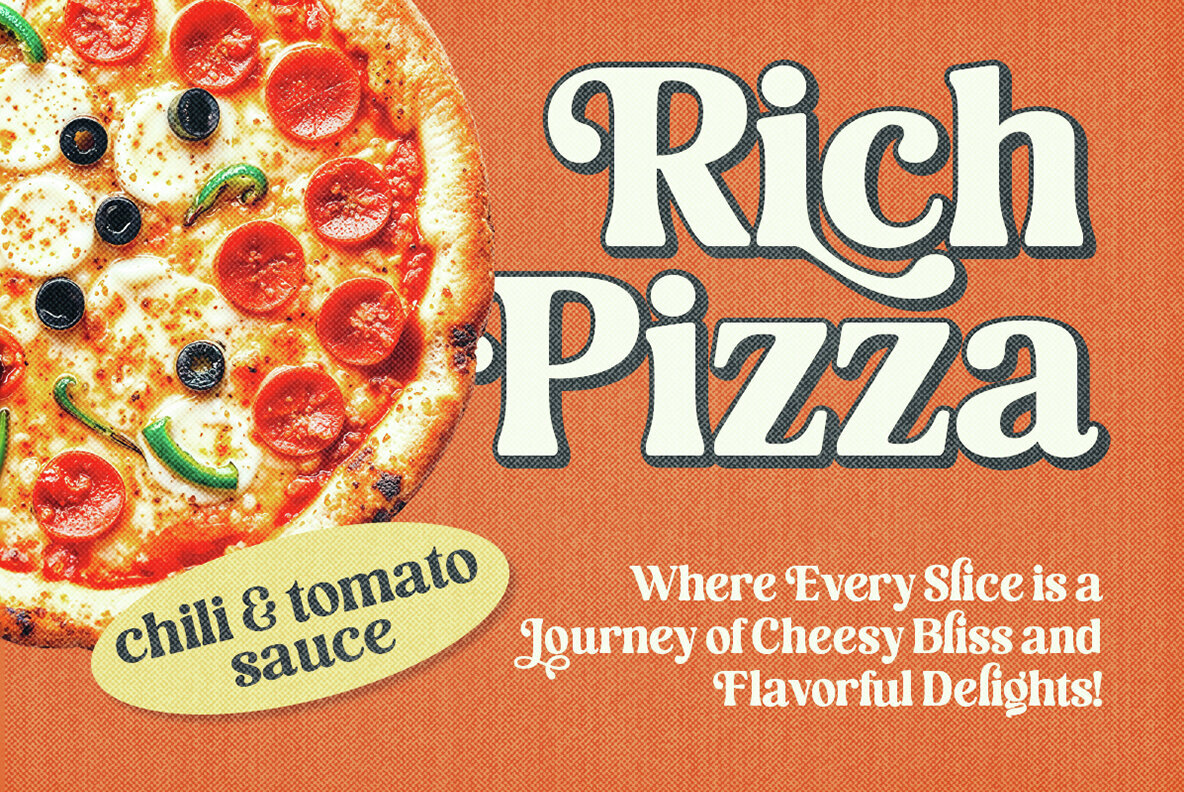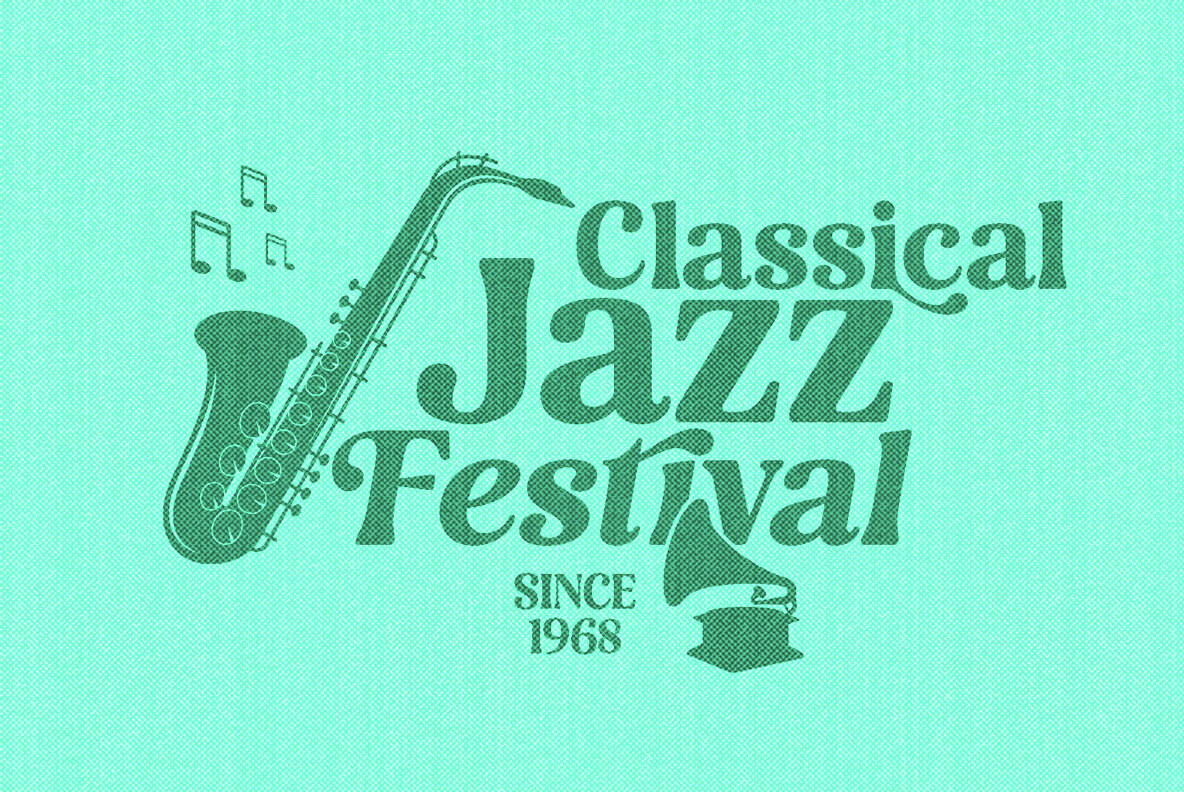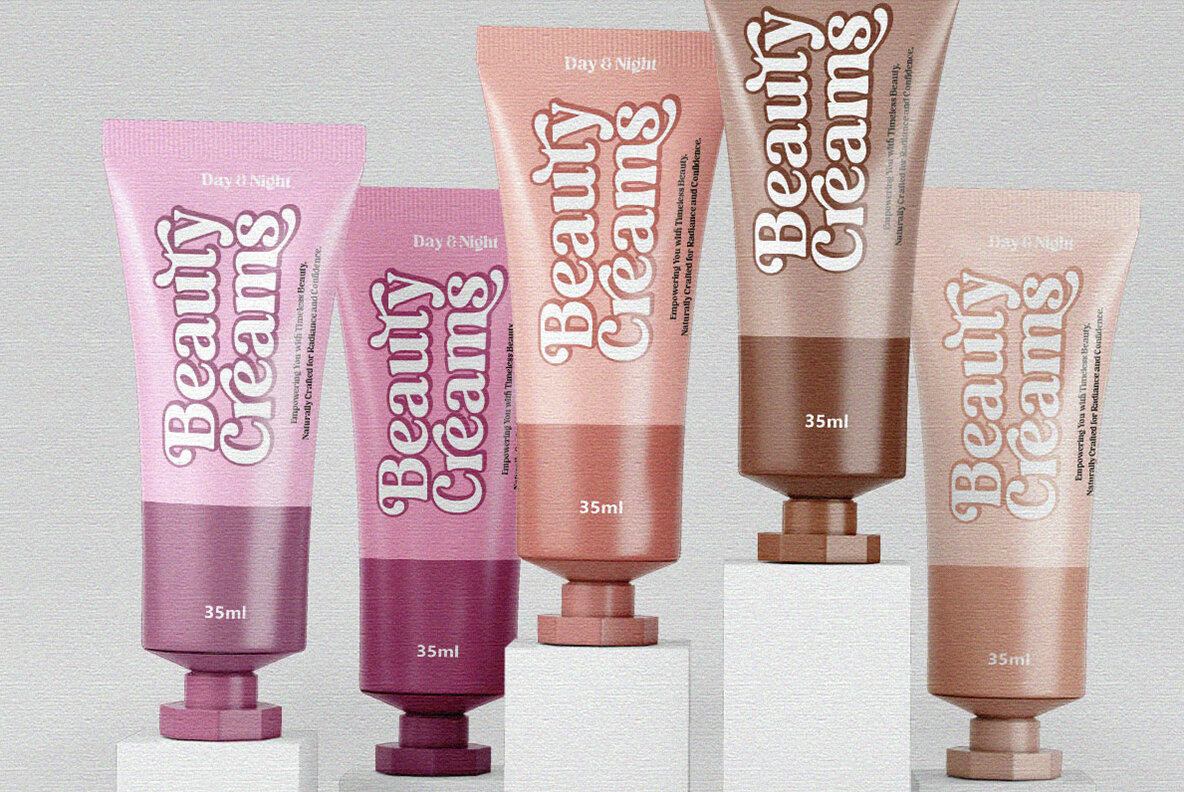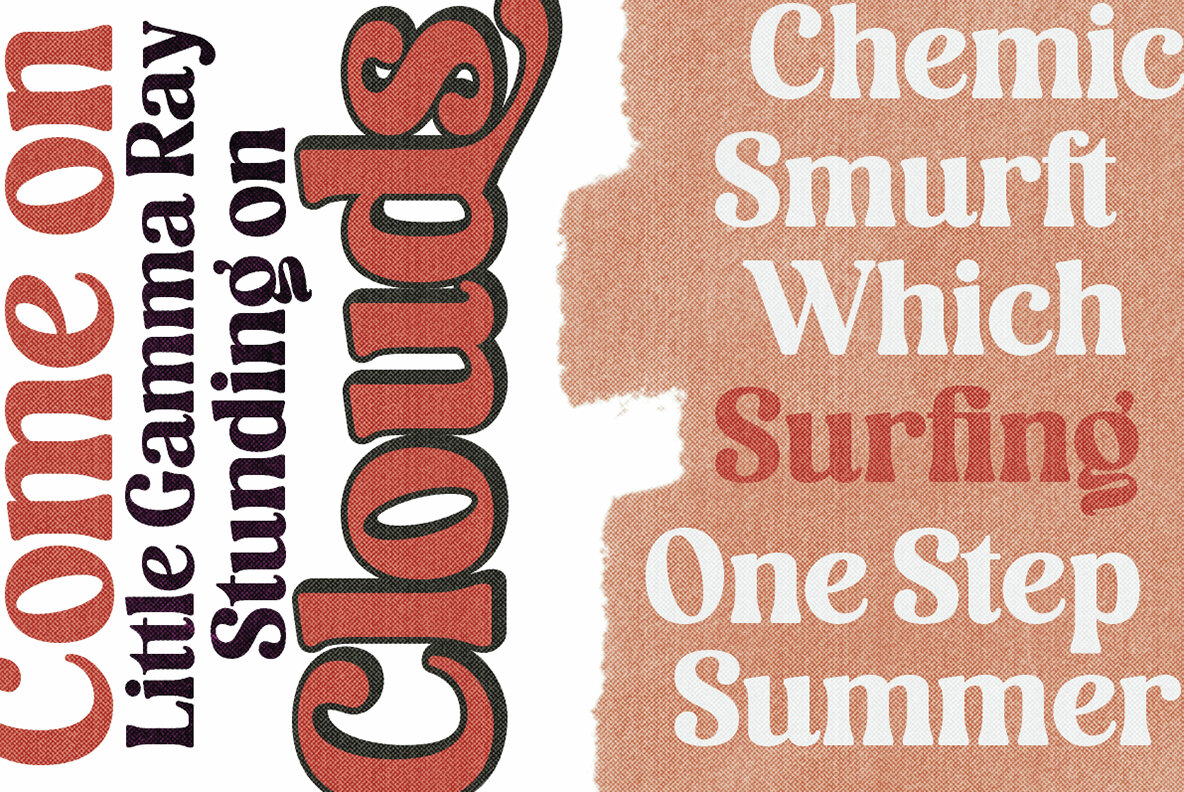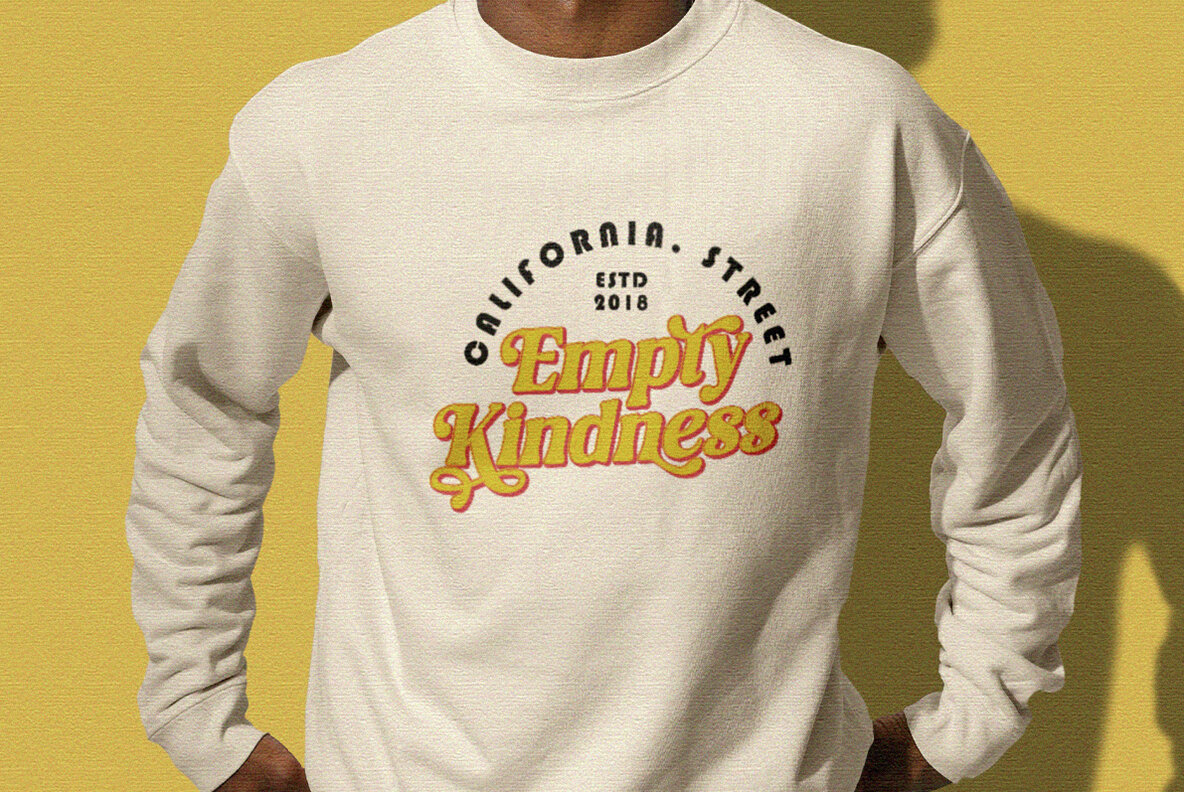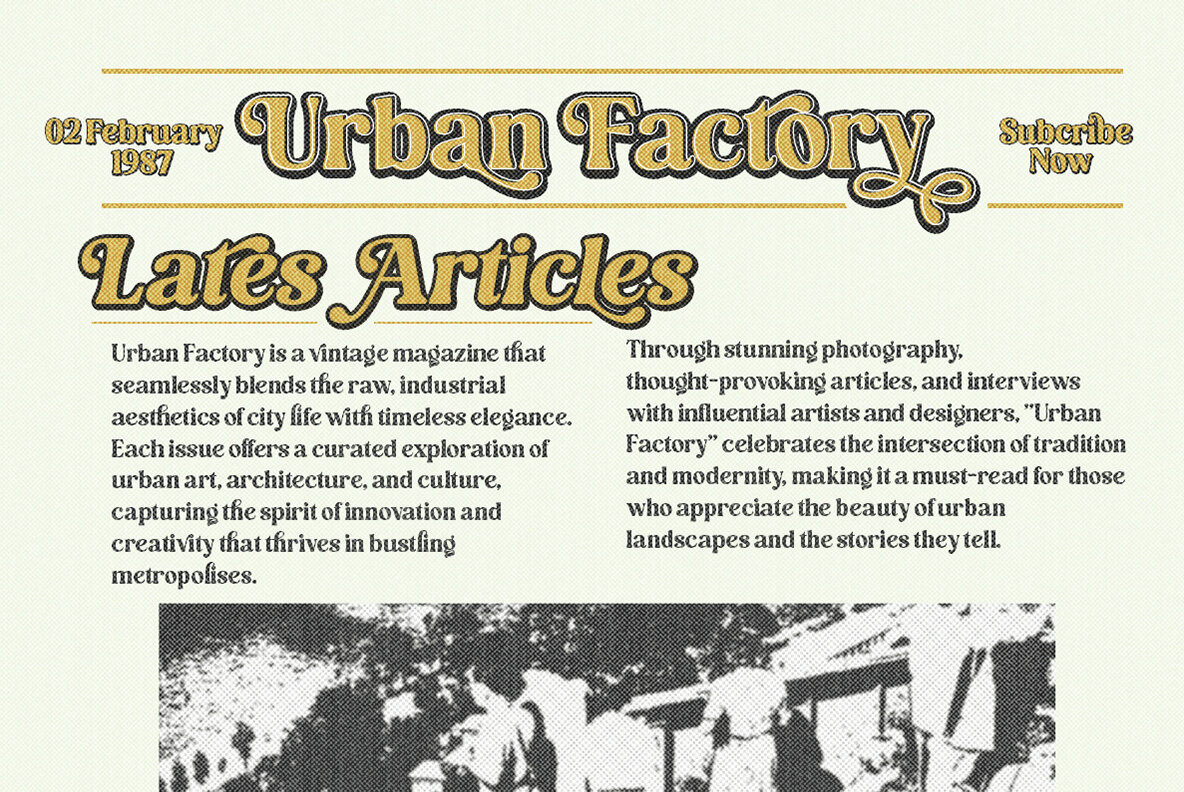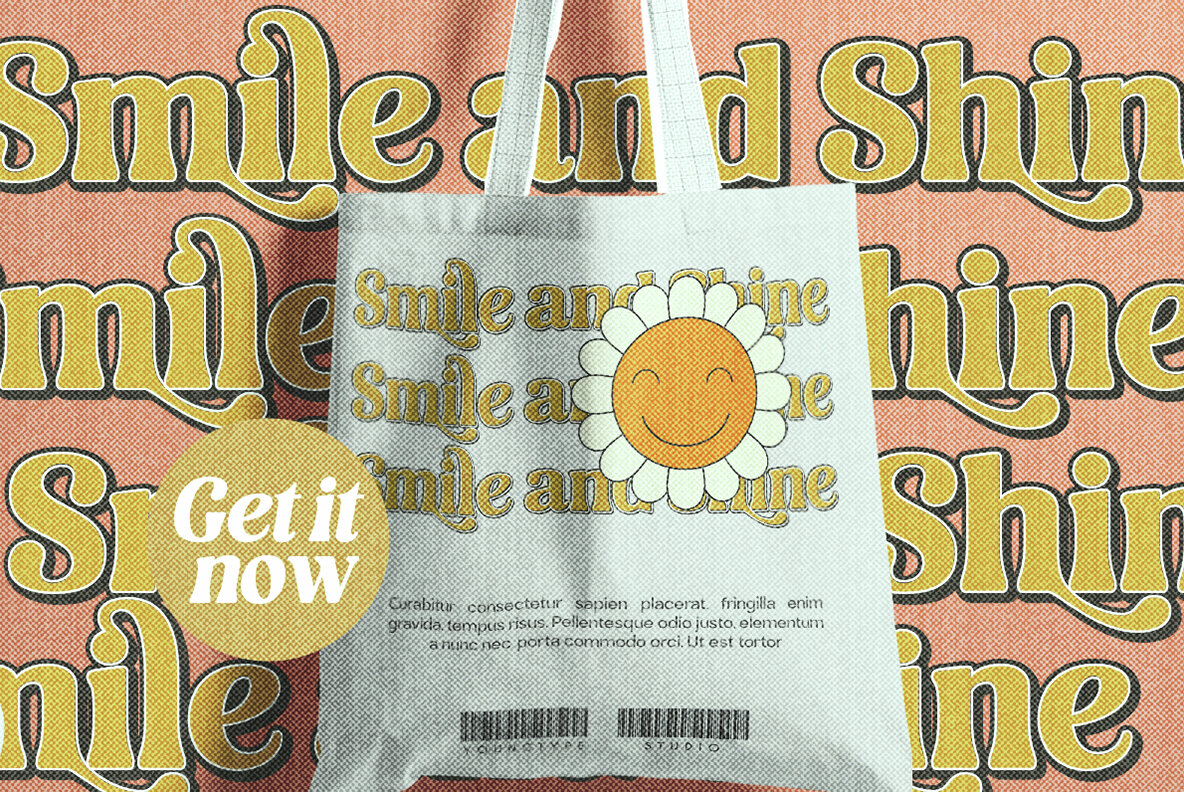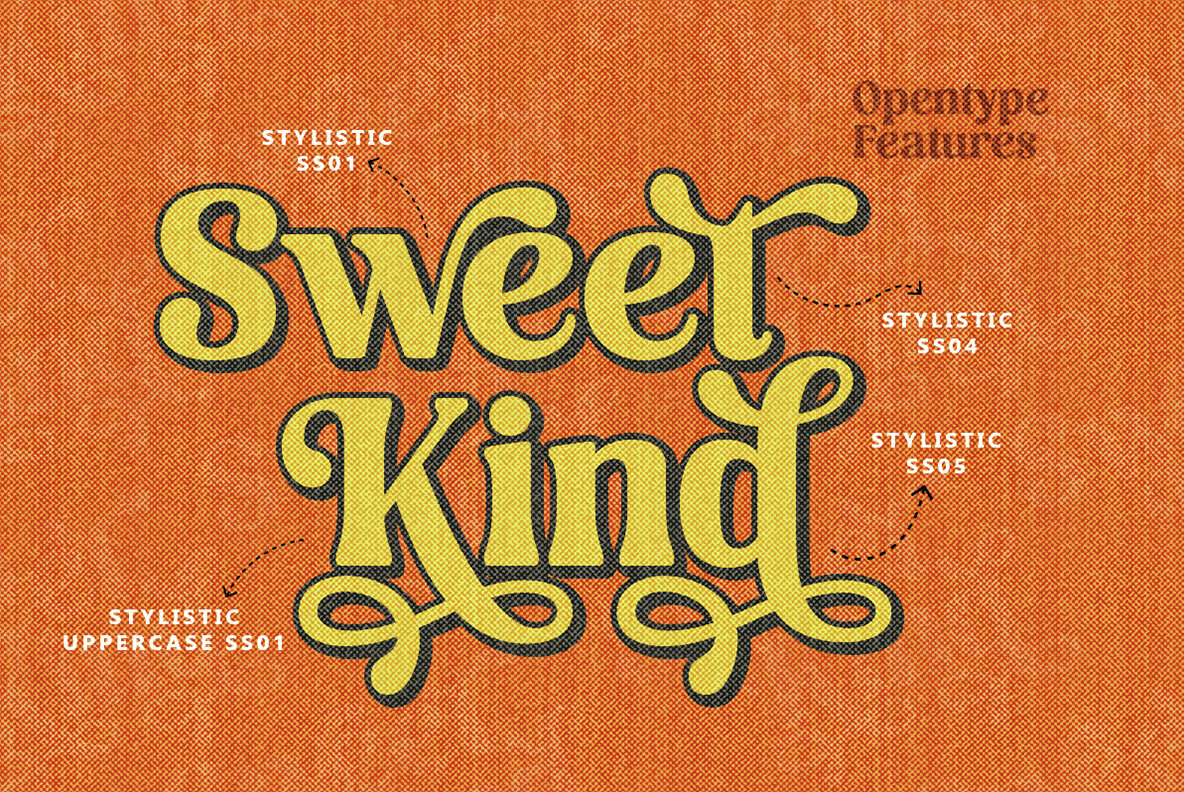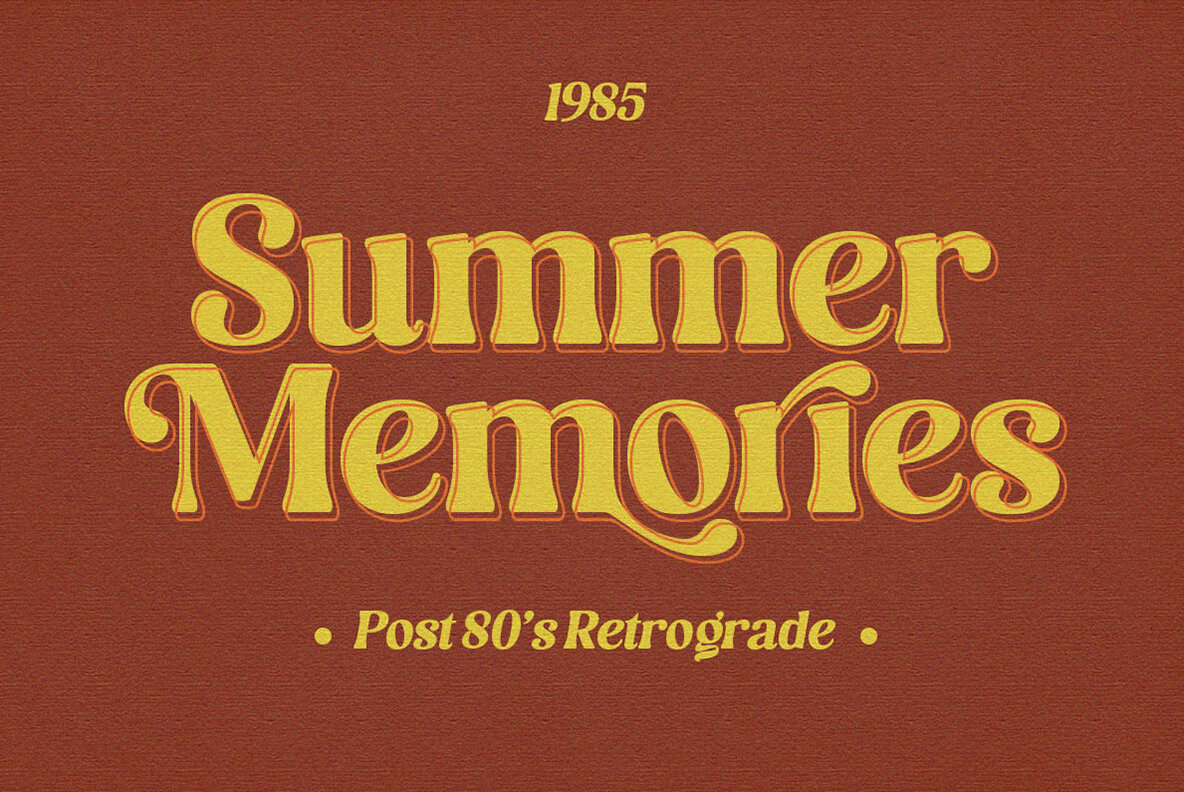
Romantic Angela Font
Romantic Angela is a vibrant retro display serif font that adds a touch of style and fun to any project. Available in four distinctive styles—regular, extrude, outline, and shadow—each with its own italic version, Romantic Angela offers a versatile set of design options. Mix and match the styles to achieve a unique look that stands out.
Ideal for a wide array of design applications, Romantic Angela is perfect for creating captivating covers, branding materials, logos, posters, quotes, and product packaging. It also lends a retro and vintage vibe to greeting cards, headlines, merchandise, and social media graphics. Incorporate Romantic Angela into your creative projects to infuse them with a nostalgic flair.